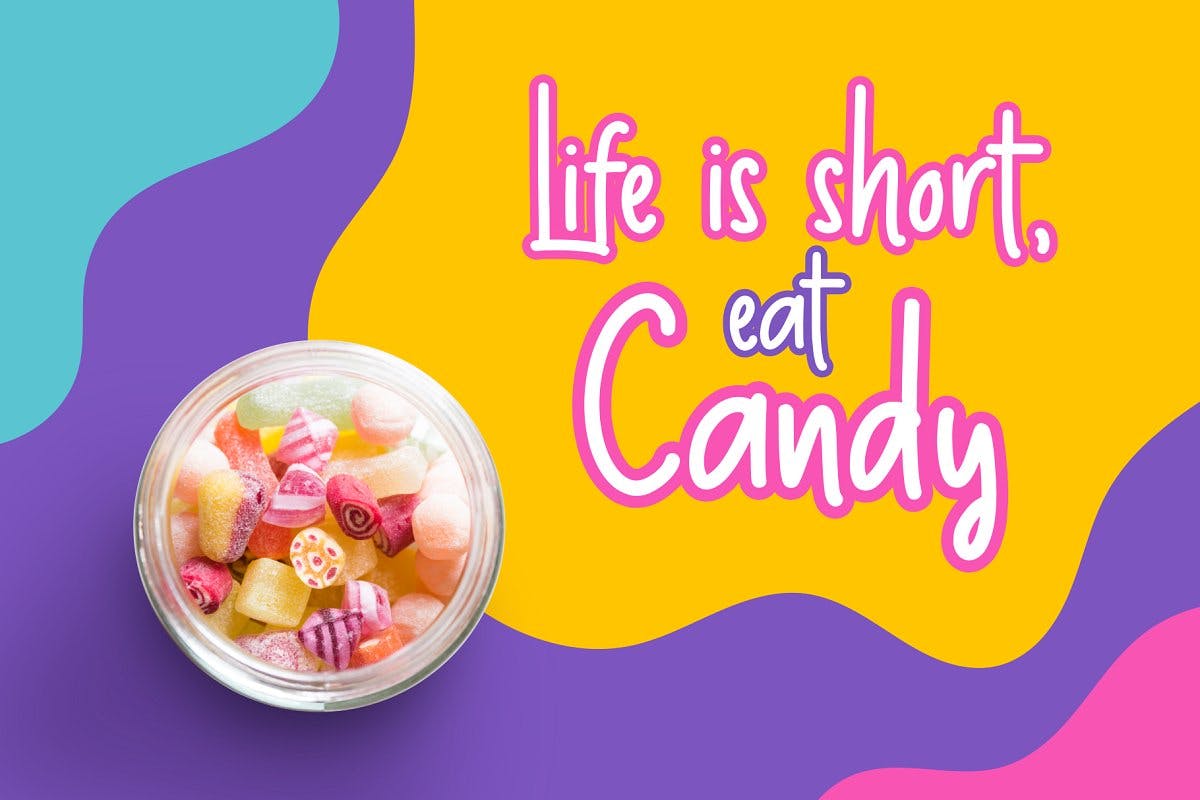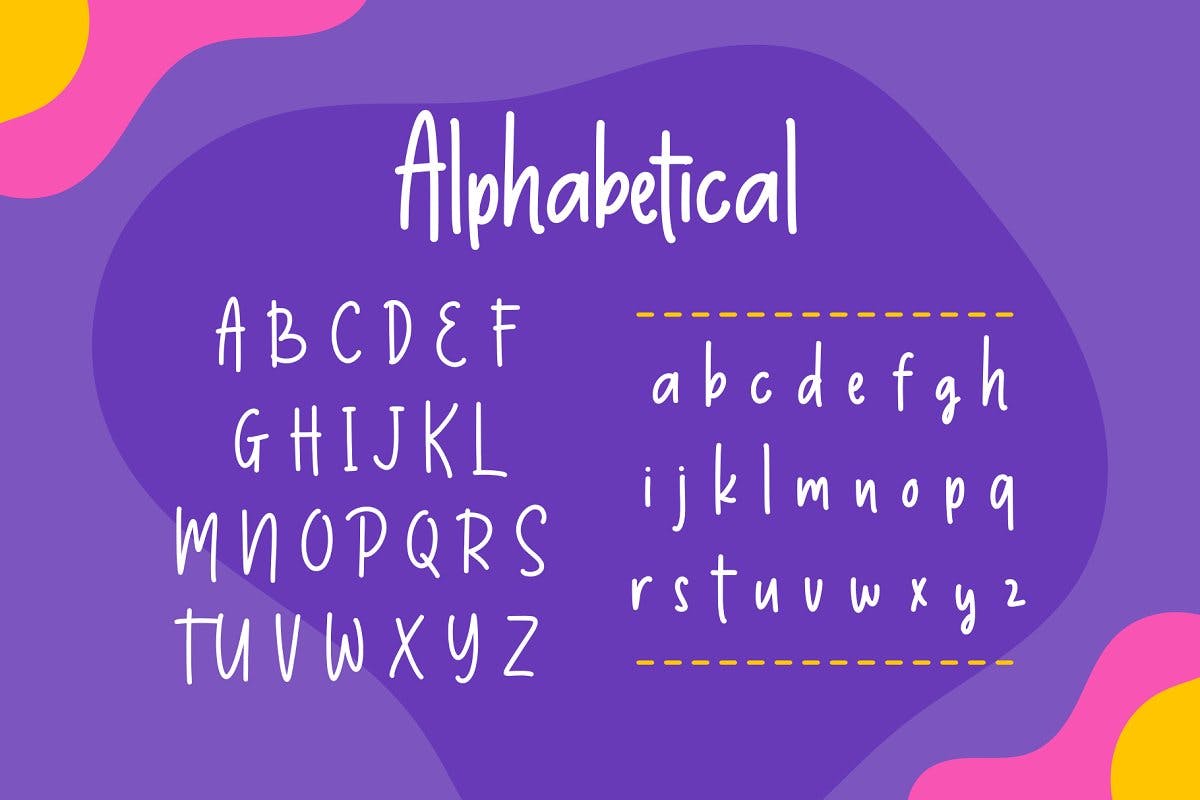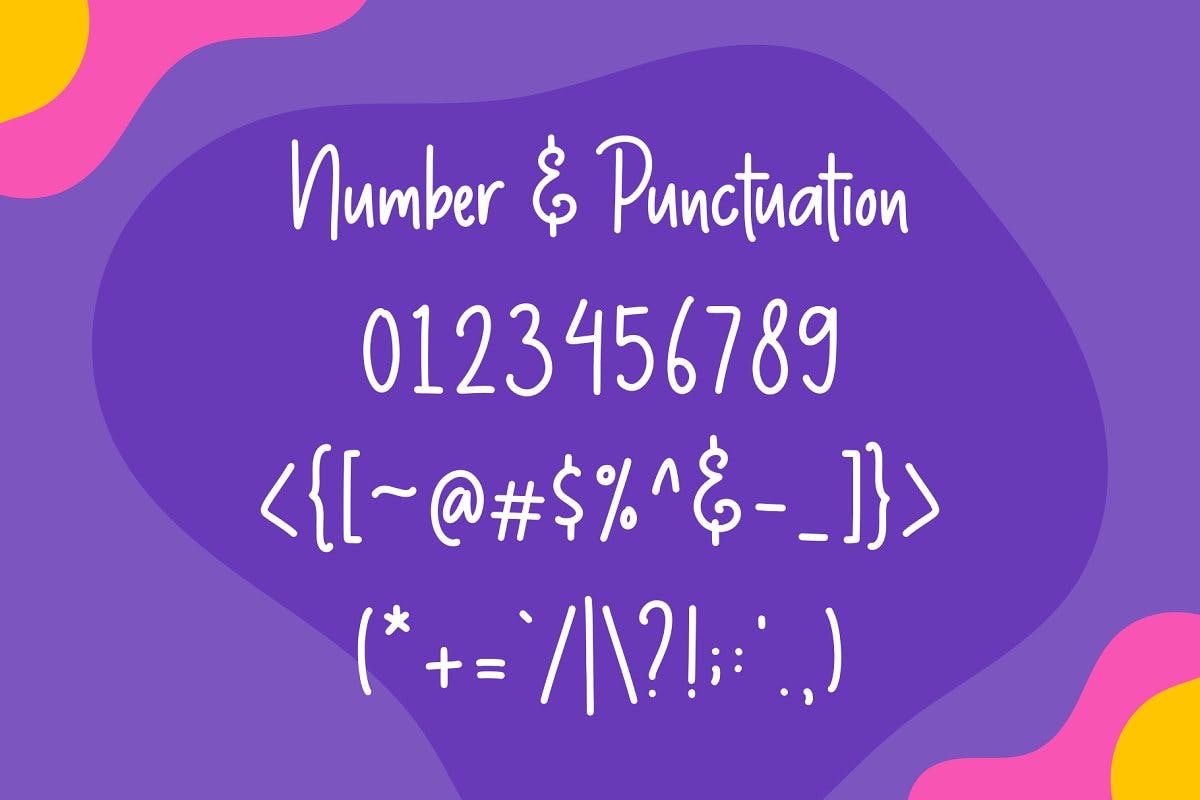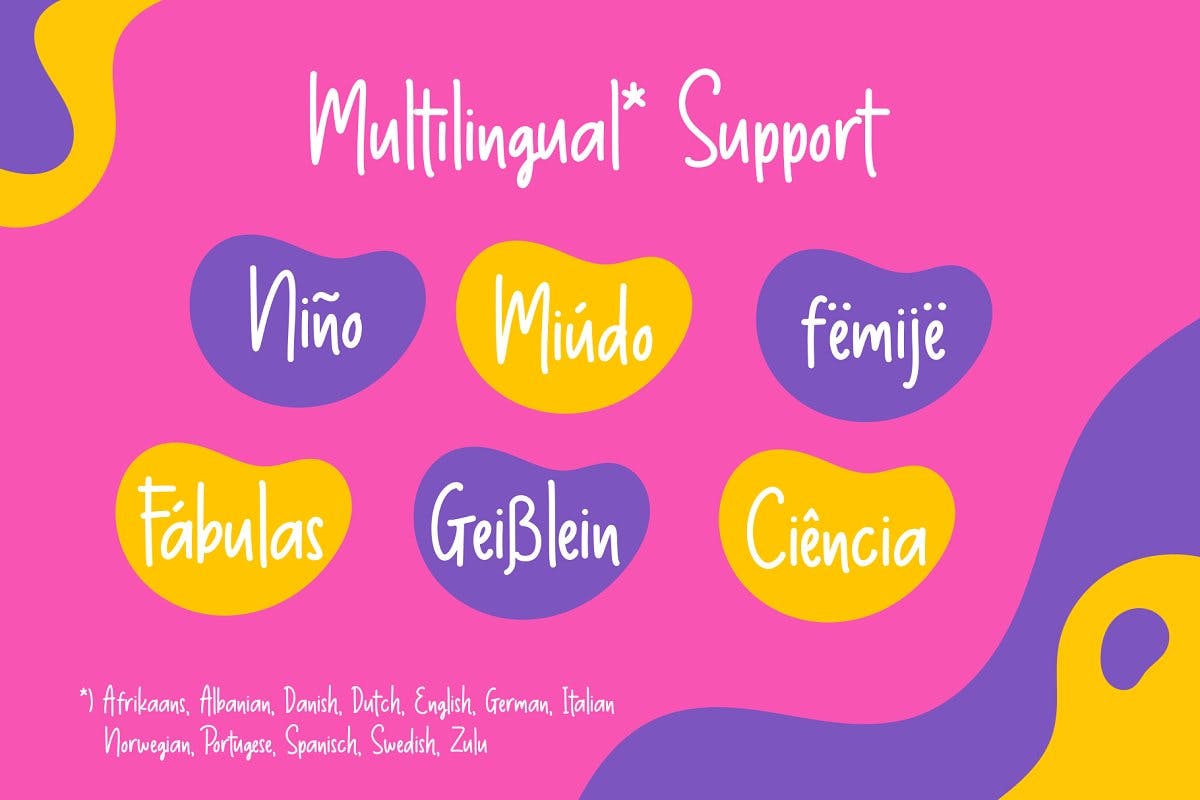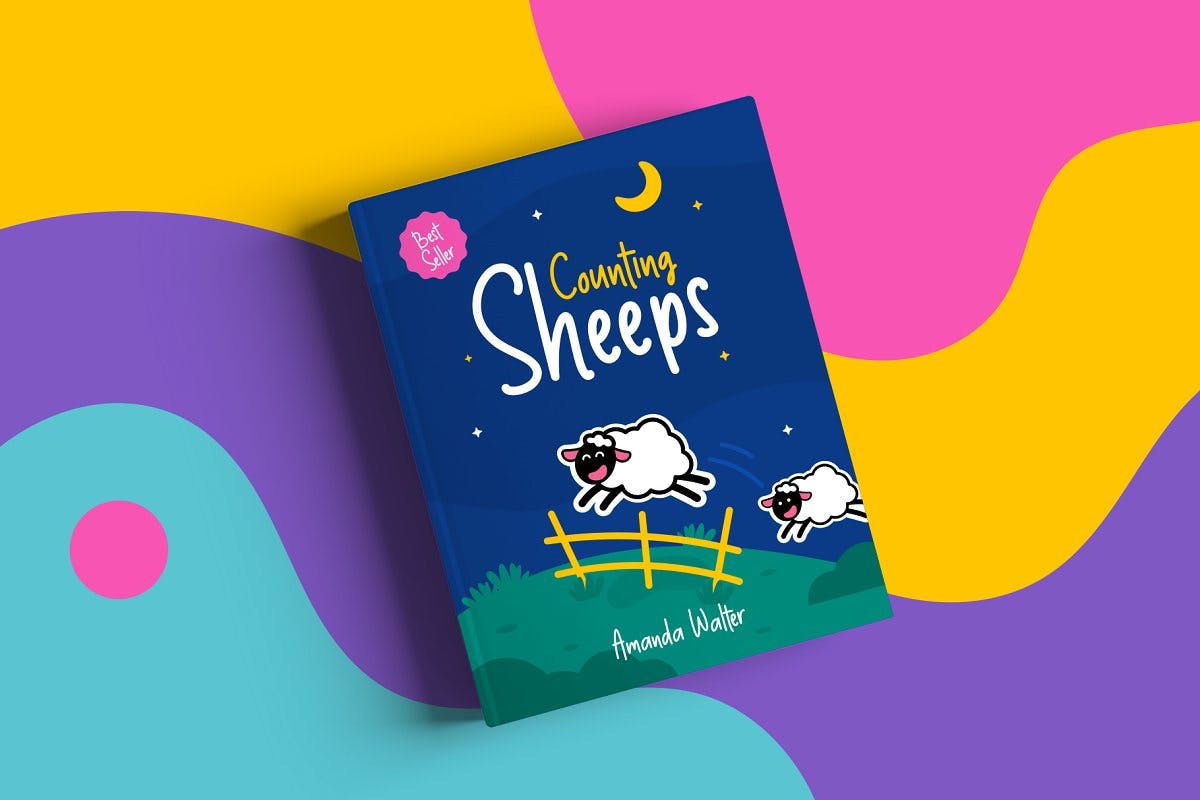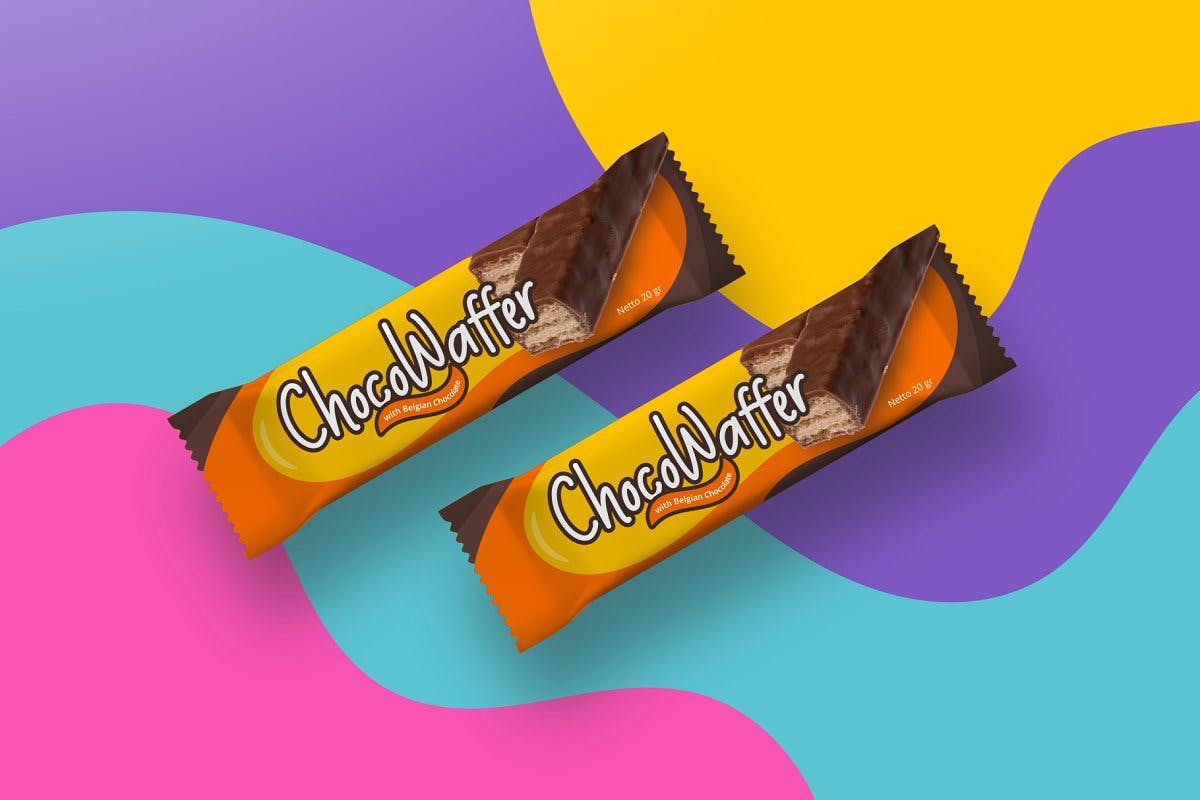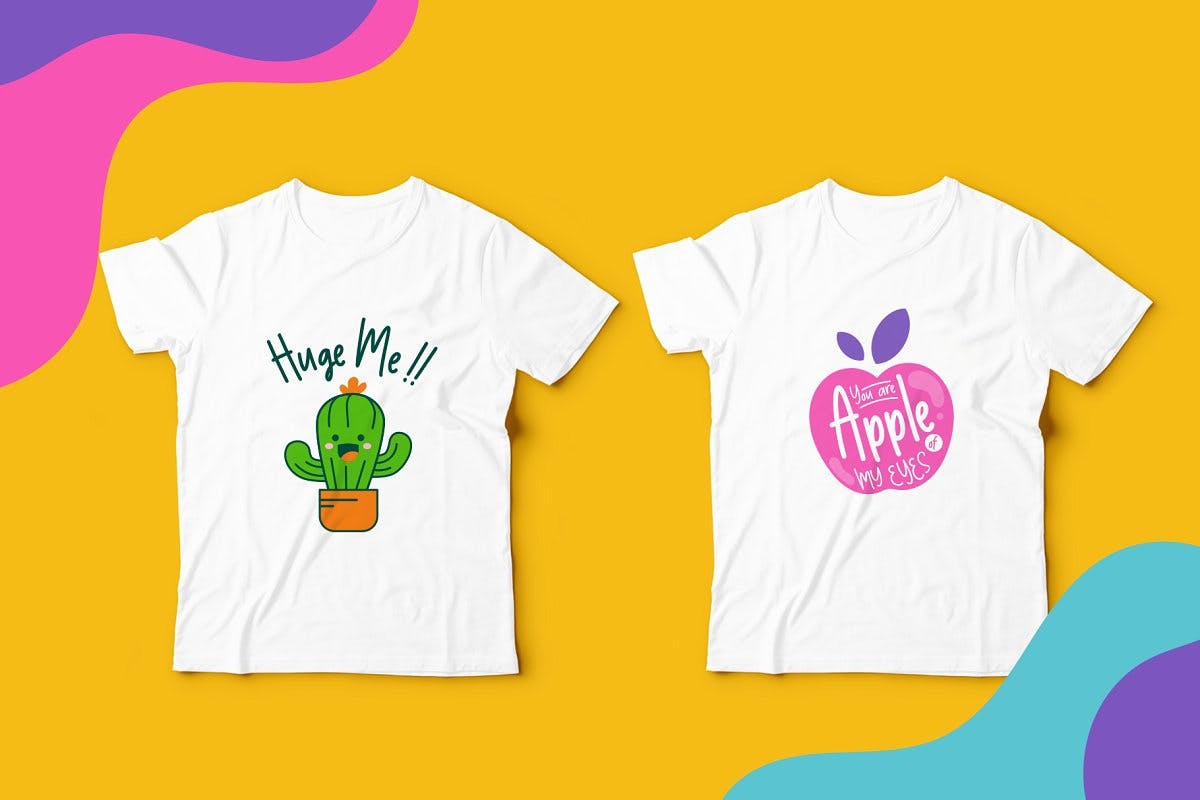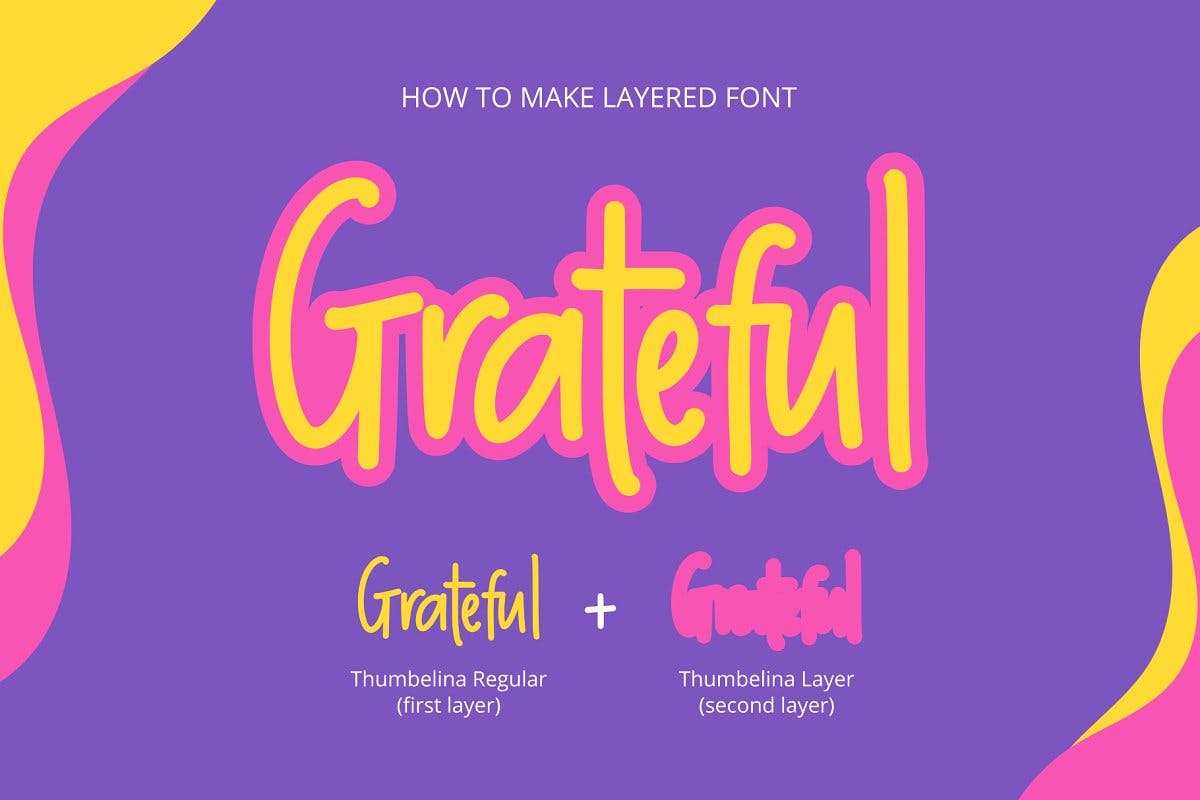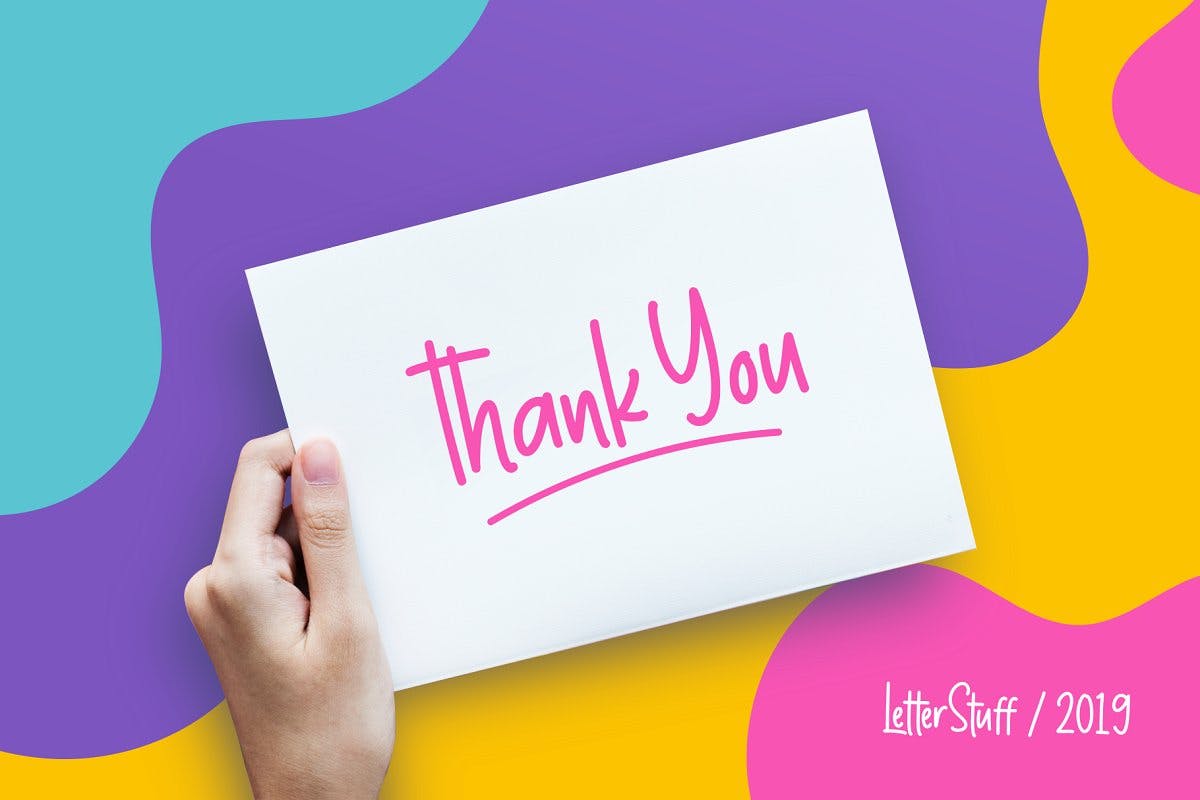
Thumbelina Free Handwritten Font
Thumbelina Free Handwritten Font is a cute handwritten layered font. It comes with fun and tiny characters, rounded shape, based on handwriting style. Itโ€™s perfect for your cute and fun design needs such as childrenโ€™s books, quotes, posters, t-shirt, craft designs, and more. However, this free font is only available for personal use license.